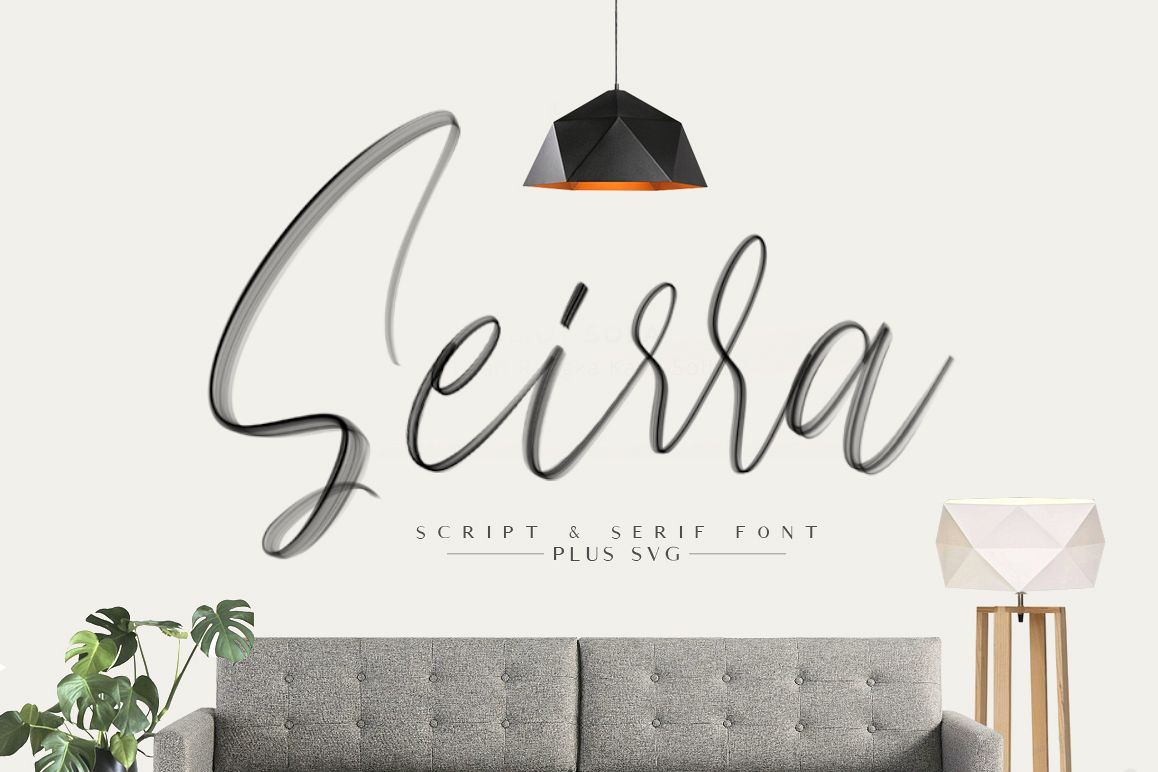
Seirra Typeface (Brush Font & Serif Font) plus SVG Font
Give your designs an authentic brush handcrafted feel. "Seirra Typeface" is perfectly suited to signature, stationery, logo, typography quotes, magazine or book cover, website header, clothing, branding, packaging design and more.